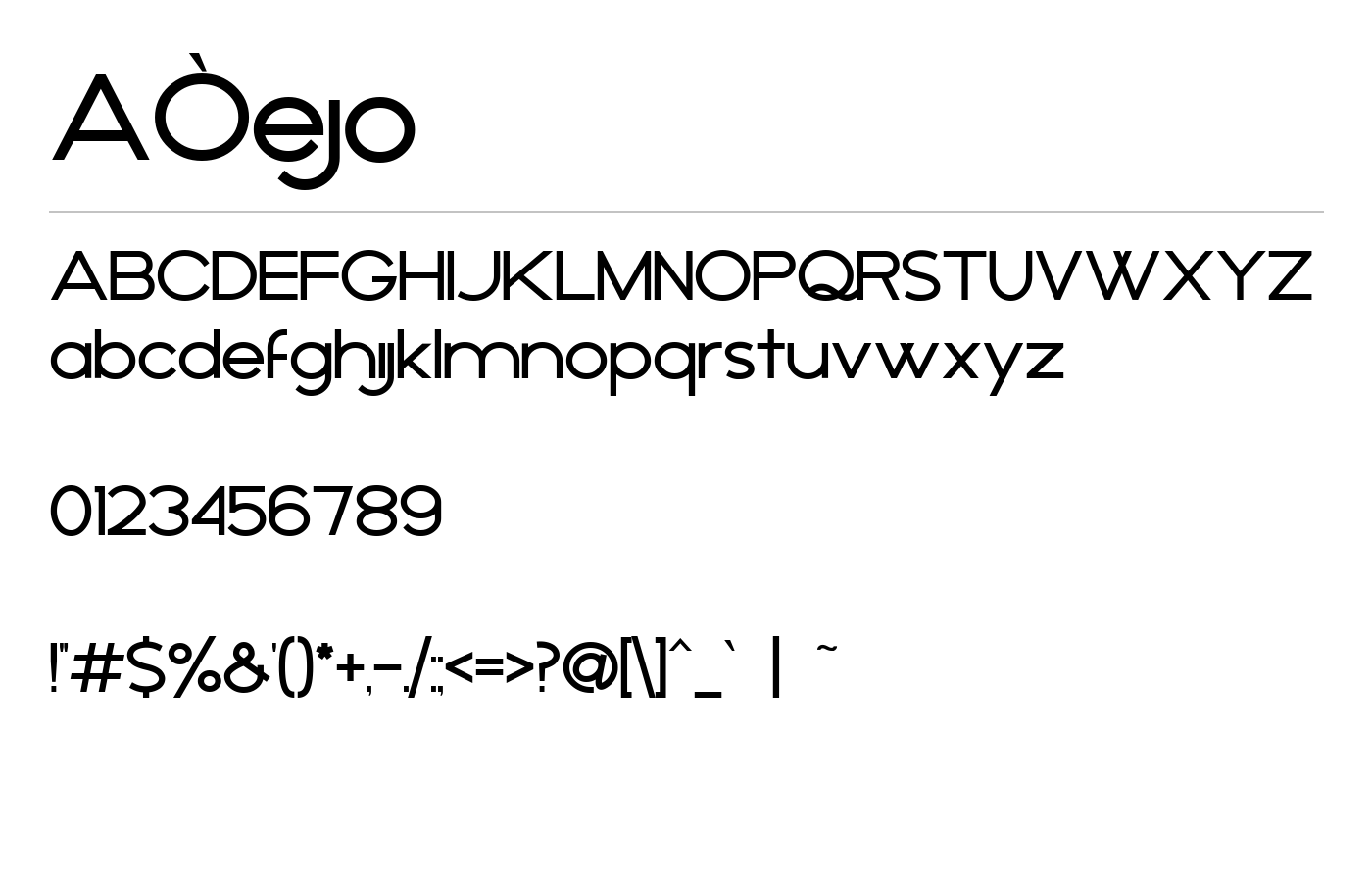
Añejo is a sleek, modern sans serif font with a clean, geometric structure and a moderate x-height that balances elegance with readability. Its consistent stroke weight and slightly condensed letterforms give it a sophisticated, contemporary feel that works well for branding, editorial design, and digital interfaces where clarity and style are key. This versatile font lends a modern yet approachable personality, making it ideal for fashion, tech, and lifestyle projects.
Añejo Font